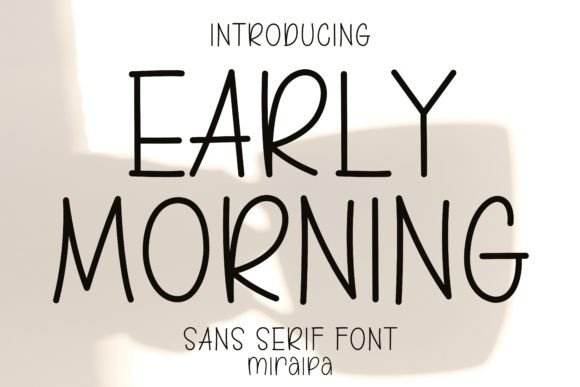
Introducing Early Morning Font, the perfect font for coffee brand enthusiasts and creative souls alike. Created by the talented miraipa, this playful and friendly handwritten sans serif font will add a touch of charm to your projects.
Imagine the possibilities with Early Morning Font. Whether you're working on a fun DIY project or planning your diary, this font will bring your ideas to life. Its unique style captures the essence of joy and creativity, making it an excellent choice for any occasion.
Looking to spice up your Easter decorations? Early Morning Font will add a delightful twist to your designs. Planning a back-to-school event or a whimsical wedding? This font will set the perfect tone, creating a memorable experience for your guests.
The versatility of Early Morning Font knows no bounds. From party invitations to fall-themed posters, from Halloween promotions to Christmas greeting cards, this font will effortlessly adapt to any design concept. Its handwritten appeal adds a personal touch, making your creations stand out from the crowd.
But it doesn't stop there. Early Morning Font is also ideal for blogs, clothing designs, social media posts, and anything that craves a friendly and inviting aesthetic. With this font in your arsenal, your content will captivate your audience and leave a lasting impression.